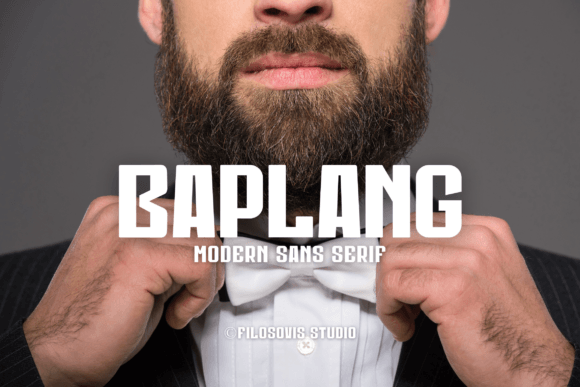
The Baplang Font: Elevate Your Designs with Modern Elegance
This modern sans serif font has been a game-changer for my designs, and I’m excited to share its charm with you. The Baplang Font is a versatile typeface that effortlessly enhances the visual appeal of various design projects, from greeting cards to logos, posters, and more.
An Honest Review: What I Love and What to Consider
- ✅ Clean and Modern Aesthetic: The Baplang Font boasts a sleek, contemporary look that’s perfect for designs that require a touch of sophistication.
- ✅ Highly Versatile: Whether you’re working on a logo, poster, or greeting card, this font adapts seamlessly to any design canvas.
- ✅ Excellent Legibility: The font’s clear and concise design ensures that your message is conveyed effectively, even at smaller font sizes.
- ⚠️ Limited Extras: While the Baplang Font is excellent on its own, it doesn’t come with an extensive range of extra features or variations.
- ⚠️ May Not Suit All Brands: The font’s modern aesthetic might not align with every brand’s identity, particularly those requiring a more traditional or ornate look.
The Designer Inspiration Behind Baplang Font
The Baplang Font was crafted with the goal of creating a modern, versatile typeface that could effortlessly adapt to various design applications. Inspired by the latest design trends and a passion for clean typography, the Baplang Font has become a go-to choice for designers seeking a stylish and reliable font.
| What makes the Baplang Font suitable for logos? | The Baplang Font’s clean and modern aesthetic, combined with its high legibility, make it an excellent choice for logos that require a professional and stylish look. |
| Can I use the Baplang Font for body text? | While the Baplang Font is excellent for headings and titles, it may not be the best choice for body text due to its modern sans serif design. However, it can still work well for short paragraphs or supporting text. |
| Is the Baplang Font suitable for digital use? | Yes, the Baplang Font is designed to be highly legible on digital screens, making it a great choice for website headers, social media graphics, and other digital applications. |